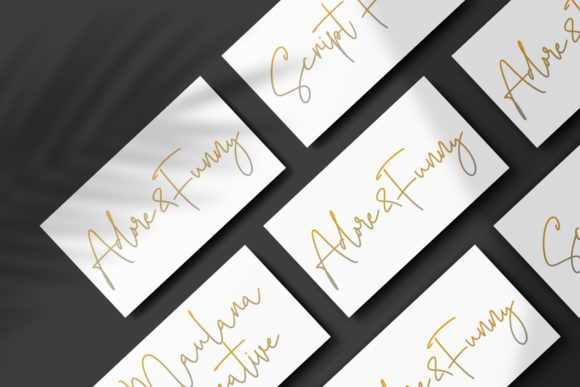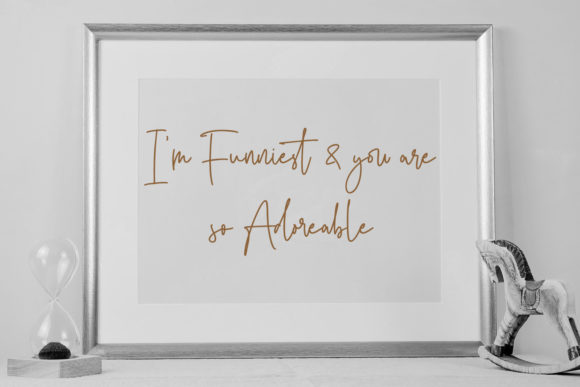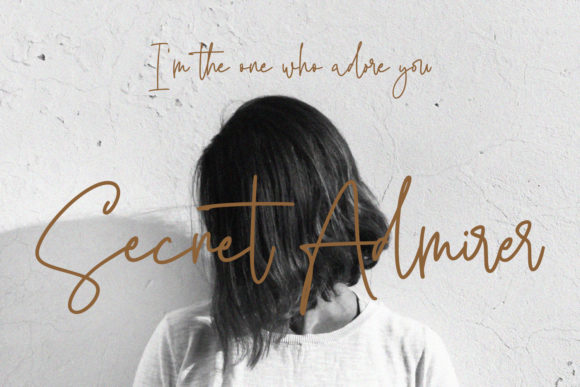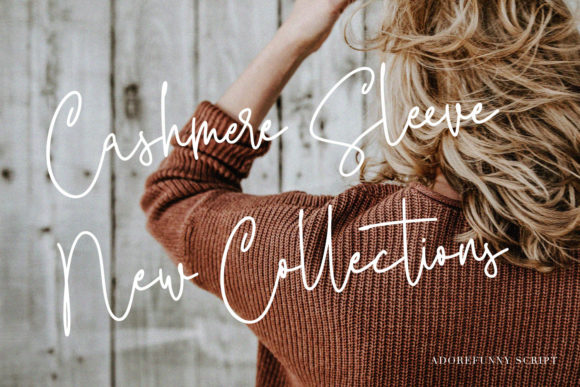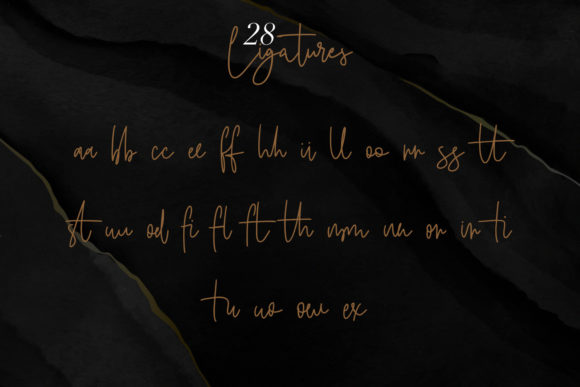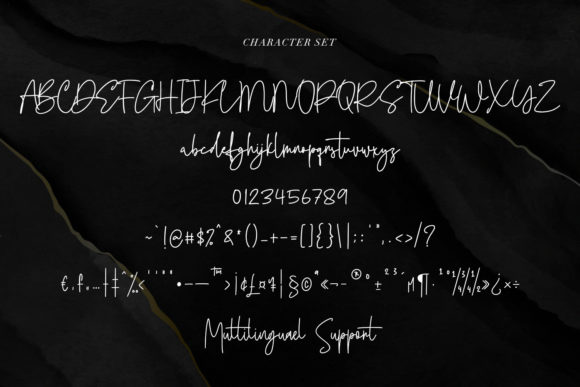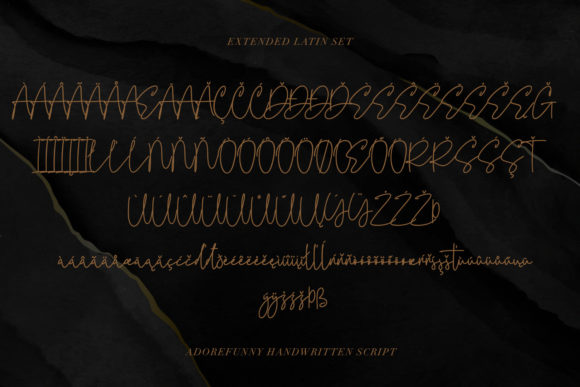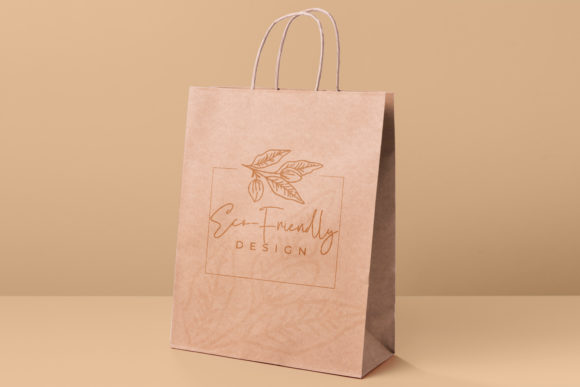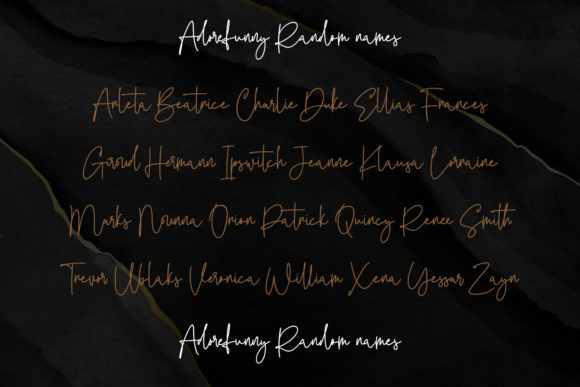
Adore&Funny Font
About Adore&Funny Font
Adore&Funny is a modern handwritten font that combines elegance with a touch of playfulness. Its neat and beautiful arrangement of letters adds a sophisticated yet approachable look to your designs, making it suitable for both formal and non-formal projects.
The carefully crafted letterforms of Adore&Funny give it a clean and polished appearance. Each letter is designed with attention to detail, ensuring a harmonious and balanced composition. This font brings a sense of professionalism and refinement to your designs while still maintaining a friendly and inviting vibe.
Whether you’re working on a formal invitation, a logo, a website, or any other design project, Adore&Funny can easily adapt to different styles and purposes. Its versatility allows it to shine in various contexts, from corporate branding to personal projects. With its modern handwritten style, it adds a touch of authenticity and personality to your designs.
The balanced arrangement of letters in Adore&Funny makes it legible and easy to read, even at smaller sizes. This is especially important when using the font for formal designs, where clarity and professionalism are key. The clean lines and consistent letterforms ensure that your message is delivered with clarity and style.
Embrace the versatility of Adore&Funny and experiment with different design applications. Its modern handwritten aesthetic can elevate your branding, marketing materials, social media posts, and more. Whether you’re aiming for a sophisticated look or a more relaxed and approachable vibe, Adore&Funny has the flexibility to adapt to your design needs.
So, unleash your creativity and explore the possibilities with Adore&Funny. With its modern handwritten style, neat arrangement of letters, and versatility, this font will make your designs stand out with a perfect blend of elegance and playfulness.